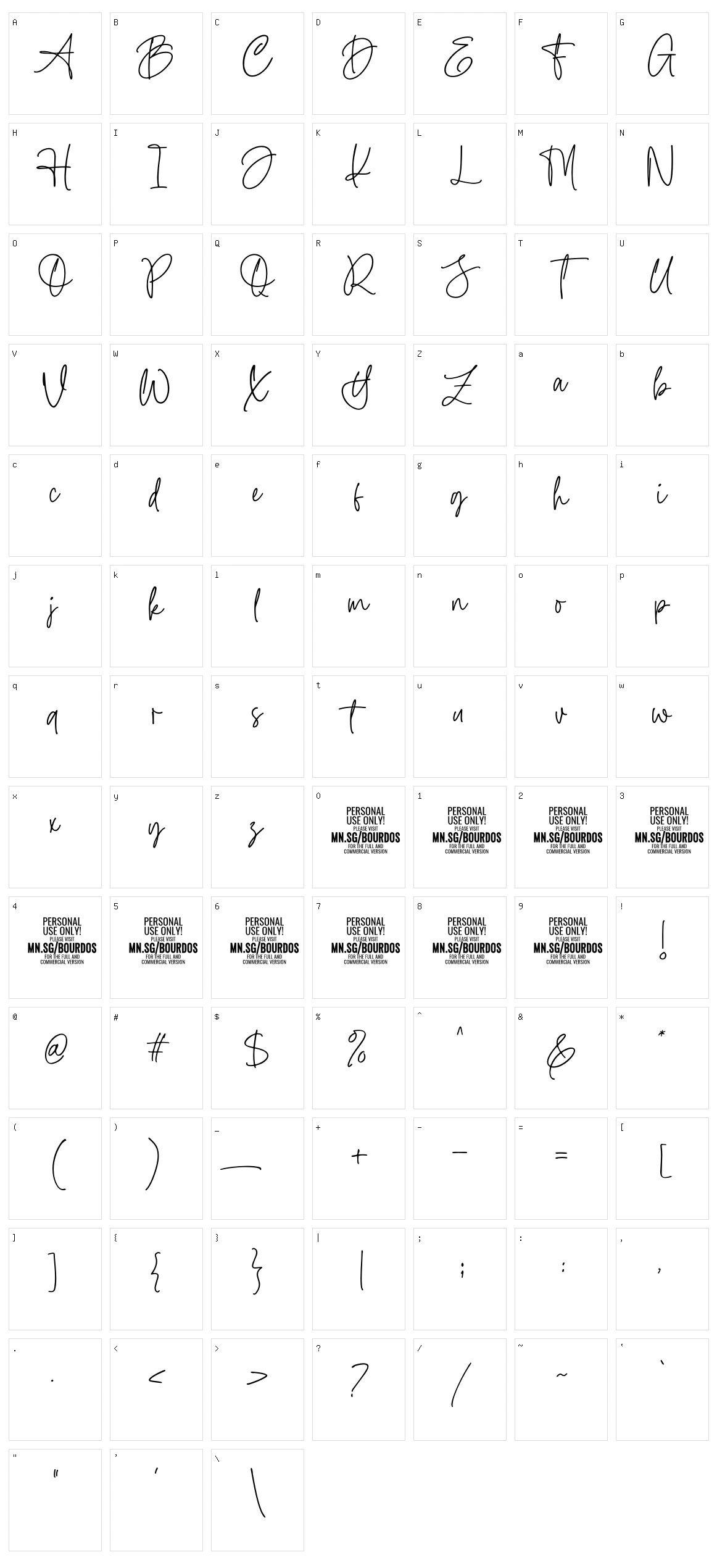
Bourdos is an energetic script typeface.
Its vivid letter forms move quickly over the paper, with active calligraphic movements and a joyful humour.
A beautiful handwriting font, Bourdos should be used for a modern logotype, an enthusiastic headline, or any graphic that needs that extra spark of life.
The Bourdos family consists of four styles.
The weights Bold and Regular, as well as Italic and Bold Italic.
Use underscore _ to make a swash.
Example: Amaz_ing
Use multiple underscores to make different swashes.
Example: Price__less
The font is built with advanced OpenType functionality and has a guaranteed top-notch quality, containing stylistic and contextual alternates, ligatures and more features; all to give you full control and customizability.
It has extensive lingual support, covering all Latin-based languages, from North Europe to South Africa, from America to South-East Asia.
It contains all characters and symbols you'll ever need, including all punctuation and numbers.